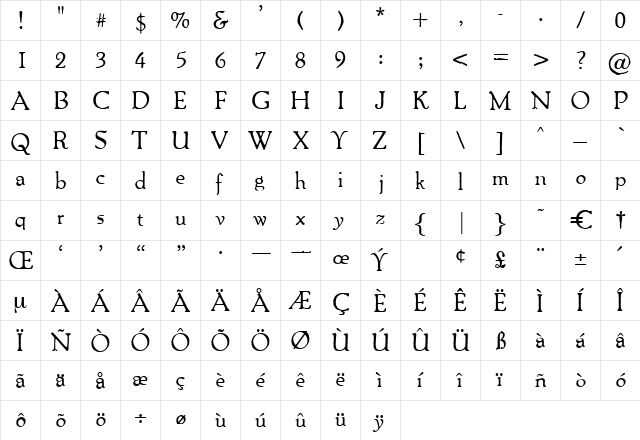
Tripoli Regular
Design Context for Tripoli Typeface
Tripoli takes a measured approach to typography — its balanced proportions and neutral character make it a reliable workhorse for both digital and print work.